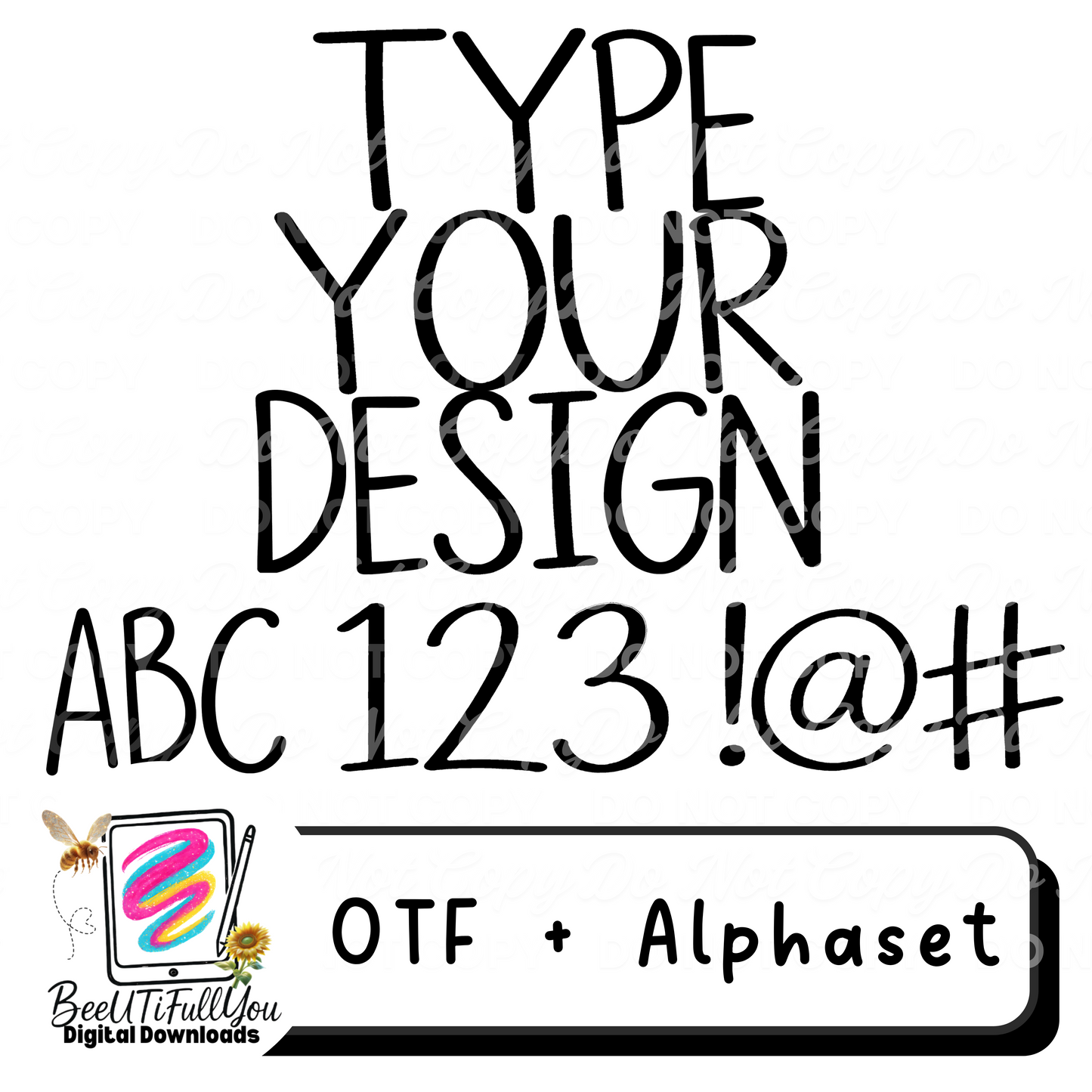
Handwritten font, Type Your Design Font – Installable OTF + Alphabet PNG Set | Digital Download
Create bold, playful designs with this Type Your Design font set ✨
Perfect for designers who want a hand-drawn, casual font style that works across apparel, graphics, and digital projects.
✔️ Clean, high-quality lettering
• Casual hand-drawn style
• Easy to read, playful, and versatile
• Works great for quotes, sayings, headers, and designs